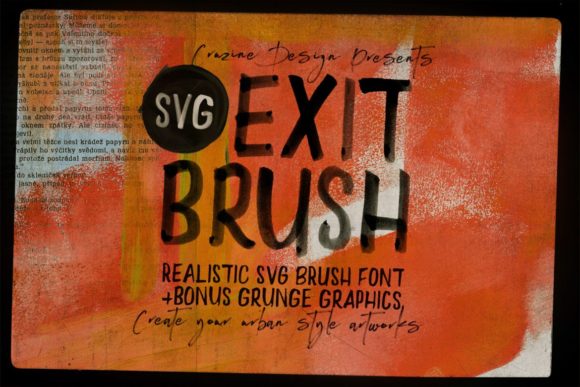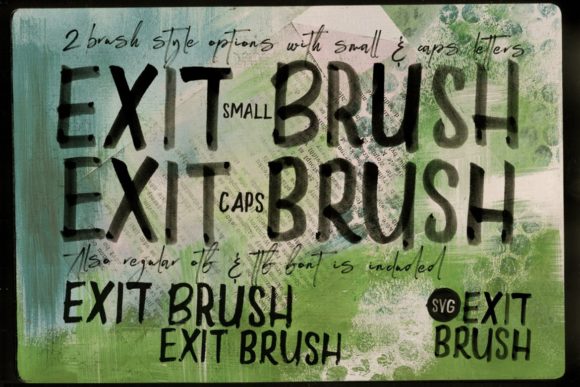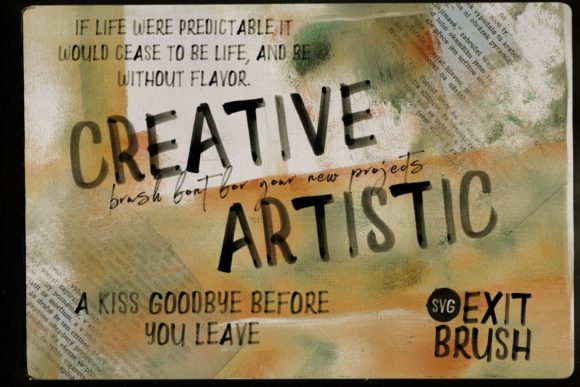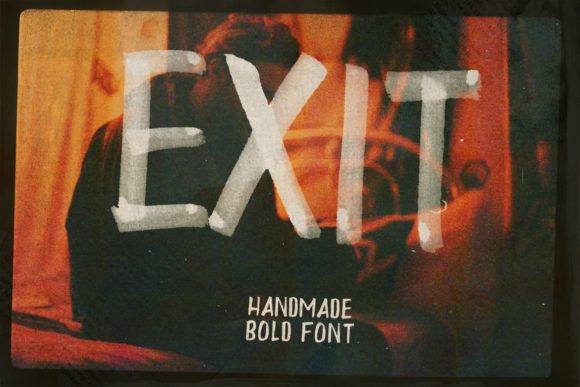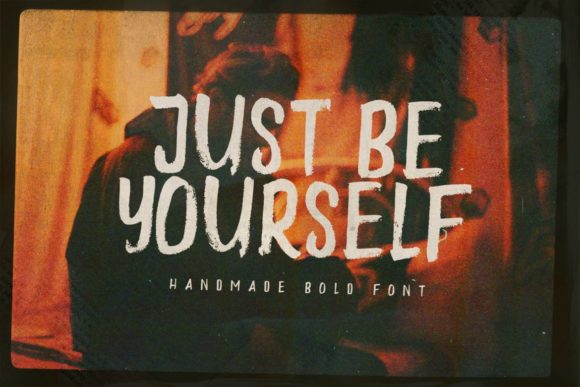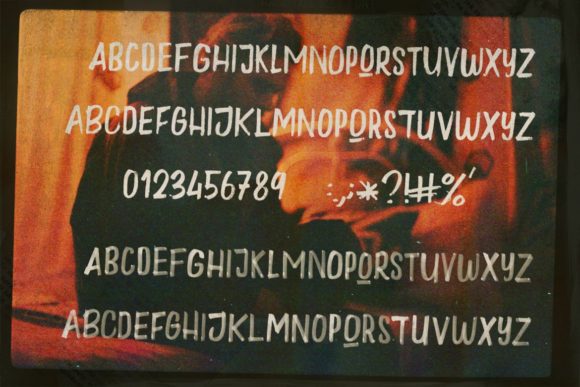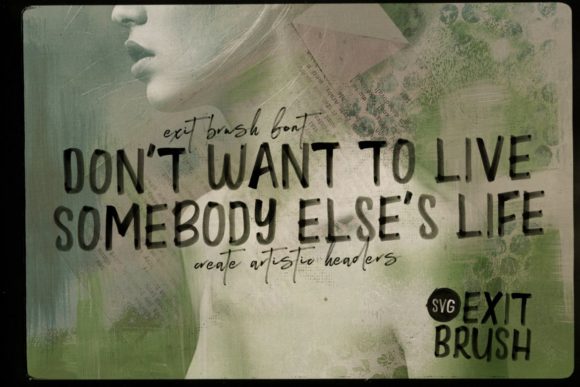
Exit Brush Font
About Exit Brush Font
Exit Brush is a great handwritten font. It features brush and grunge style that makes it perfect for any project that requires a personalized look. It also brings a color SVG style – get inspired by its unique look and create stunning crafting projects!